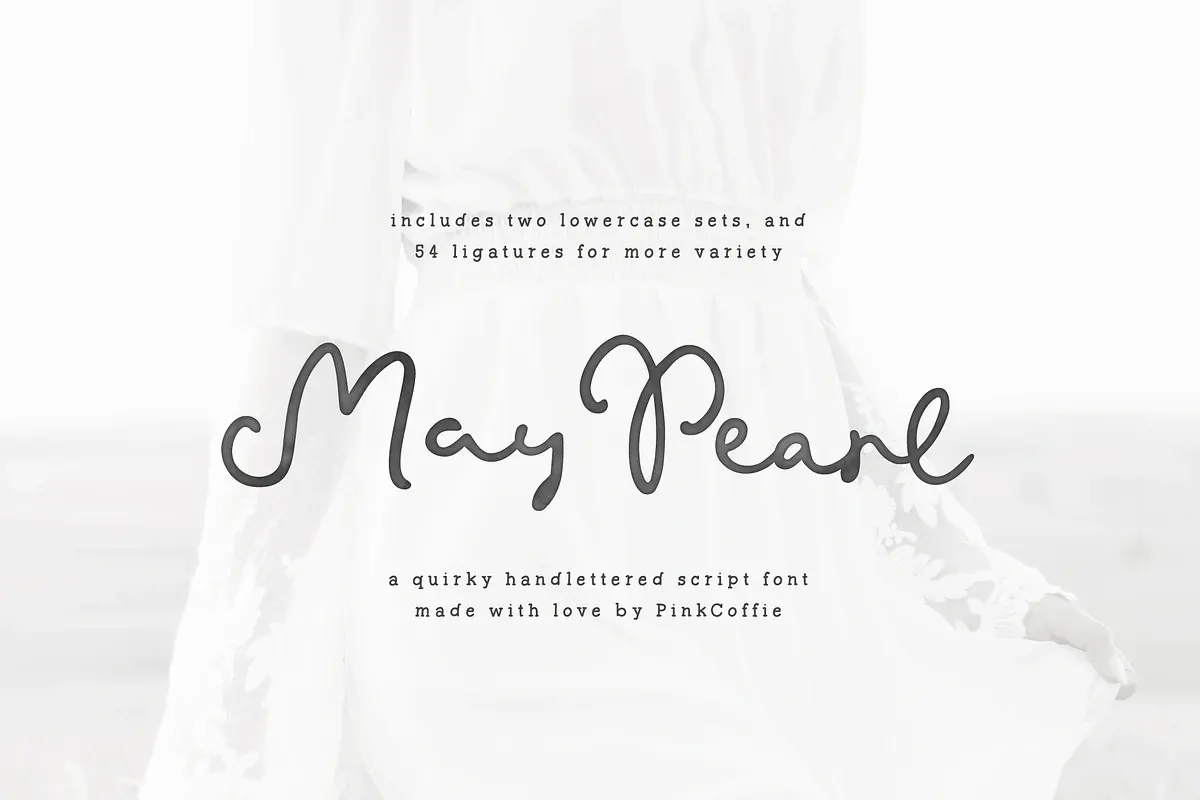
You must purchase this font for commercial use. However, you can download May Pearl | Handwritten Script Font Free Download for testing purposes. May Pearl is a soft and elegant handwritten script font that captures the natural flow of authentic penmanship. Perfect for wedding invitations, feminine branding, beauty product packaging, quote graphics, and lifestyle blogs, this font brings a personal and romantic touch to any design.
With its smooth curves, delicate strokes, and graceful rhythm, May Pearl radiates warmth and sophistication. It often includes stylistic alternates and ligatures, allowing you to add variation and personality to your typography. Whether you're creating a heartfelt message or designing a dreamy logo, May Pearl | Handwritten Script Font Free Download gives you the freedom to experiment with style and softness.